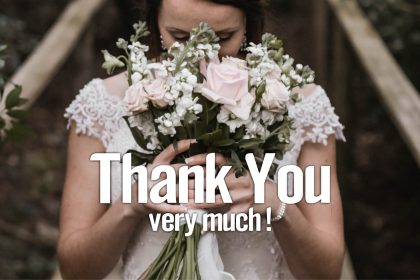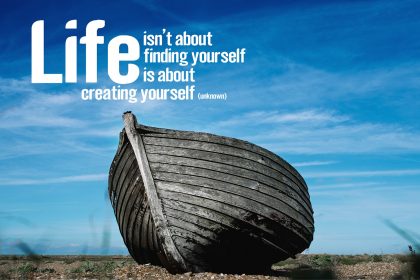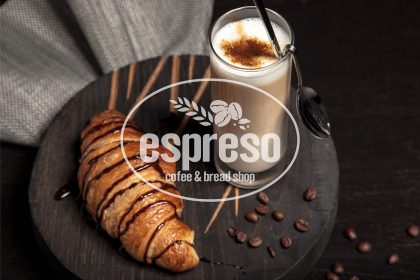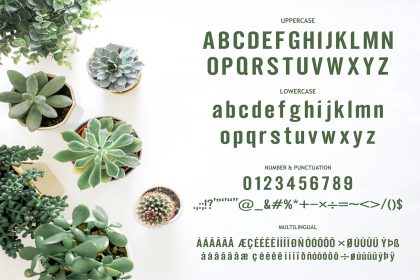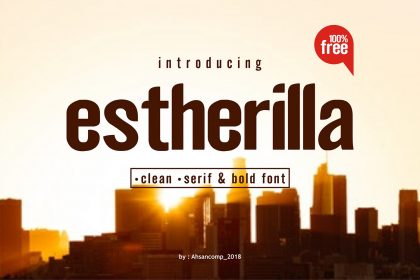
Estherilla Typeface
Hi Everyone! Introducing Estherilla Font. Estherilla is a clean, serif and bold font. Estherilla will be best for texts, presentations, posters, fashion, logos, branding, photography, invitations, magazines, logos, advertisements, quotes, and other any business related.